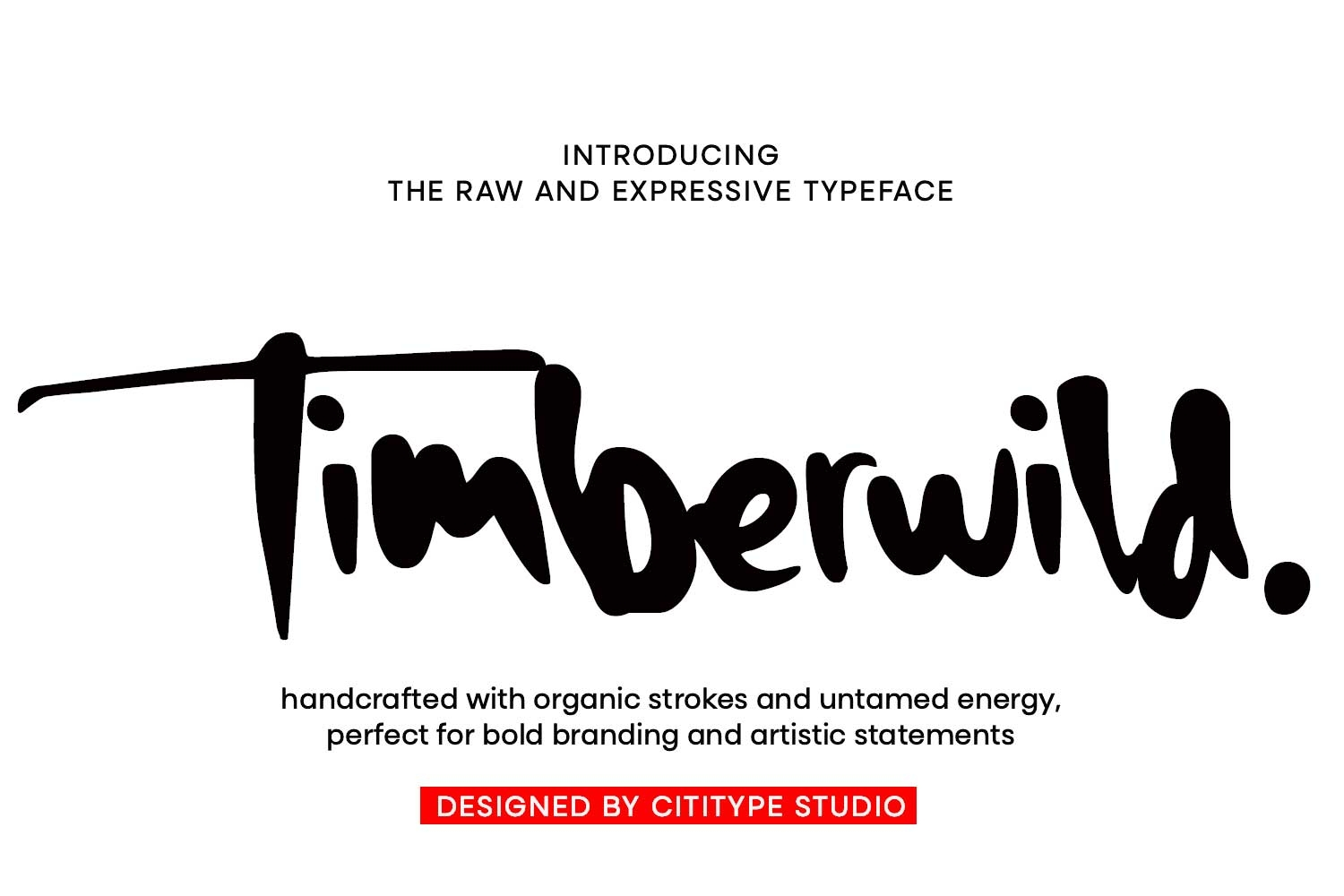
Timberwild
Timberwild is a raw and expressive typeface crafted with untamed brush strokes and organic flow. Every letter captures the spirit of freedom, spontaneity, and handmade artistry, perfect for bold statements and striking visuals.
Designed for creators who dare to stand out, Timberwild brings an authentic human touch to logos, posters, packaging, apparel, and creative branding. With a wide set of ligatures, multilingual support, and dynamic strokes, this font adapts effortlessly from edgy headlines to artistic compositions.
Let Timberwild infuse your design with wild energy and fearless creativity.